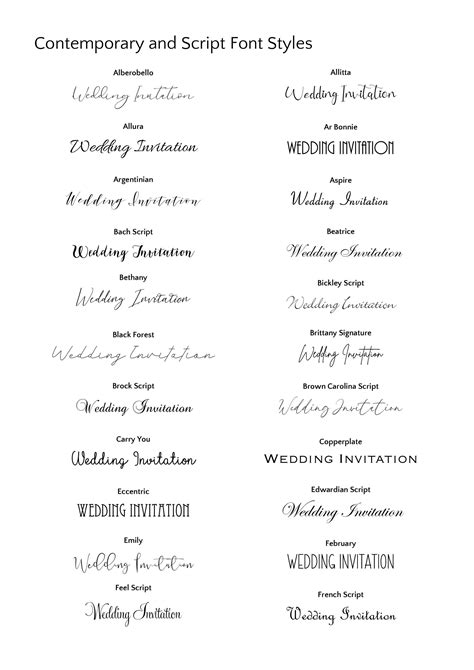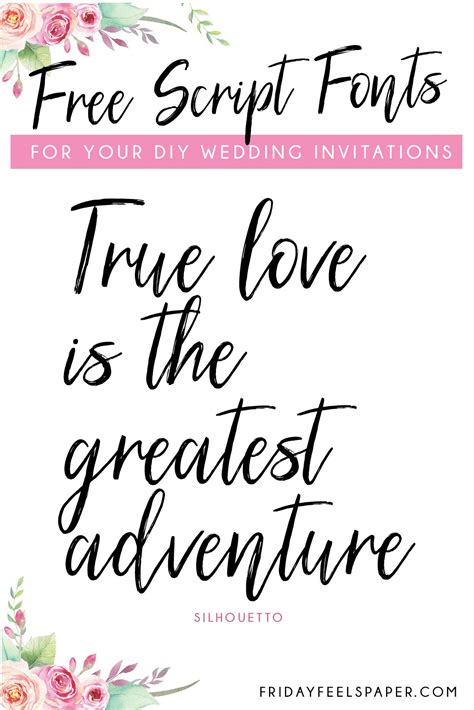
Top 23+ Wedding Microsoft Word Fonts Docx
When I first started designing wedding invitations, I quickly realized that not every couple has access to Adobe Illustrator. Most brides are sitting at home, staring at a blank document, trying to figure out how to make their stationery look elegant without a steep learning curve. That's exactly why I compiled my list of the Top 23+ Wedding Microsoft Word Fonts Docx. Honestly, Word gets a bad rap for graphic design, but it handles typography surprisingly well if you know which typefaces to install. You just need fonts that don't scream "default office template."
Why Choose the Top 23+ Wedding Microsoft Word Fonts Docx?
Here's the thing: professional design software is expensive and complicated. If you are working with a tight budget or a quick turnaround, Microsoft Word is entirely accessible. I've formatted hundreds of .docx files, and the secret lies in mixing a striking script with a clean, readable serif. When set up in text boxes with proper margins, Word's kerning does a decent job for at-home printing. You don't need a pro suite; you just need better typefaces than Calibri.
Testing the Top 23+ Wedding Microsoft Word Fonts Docx
Through trial and error, I've separated the truly elegant options from the cheesy ones. Below is a curated breakdown of the best styles to use, organized by their specific role in your invitation suite.
Font Name Style Category Best Used For
Great Vibes Formal Script Names and main headings
Cormorant Garamond Elegant Serif Body text and ceremony details
League Spartan Modern Sans Serif Modern, minimalist suites
Pinyon Script Romantic Script Monograms and envelopes
Playfair Display High-Contrast Serif Subheadings and dates
Expanding Your Font Library
To round out the full list of twenty-three plus options, you should download these specific alternatives to elevate your .docx files. I've found these work reliably across different versions of Word without corrupting the layout:
• Alex Brush: A classic, flowing script that handles large font sizes beautifully.
• Allura: Perfect for a soft, romantic vibe on secondary text.
• Bebas Neue: Ideal for modern, uppercase tracking on save-the-dates.
• Montserrat: A clean, geometric sans-serif that balances highly decorative scripts.
• Cinzel: Brings a timeless, classical Roman inscription feel to formal invites.
Building a beautiful wedding suite in Word is entirely possible once you step outside the default font menu. By combining a formal script with a structured serif, you can elevate a simple document into something worth framing. Download a few of these typefaces, test them in your text boxes, and trust your eye. You’ll know the right combination when you see it printed on the page.